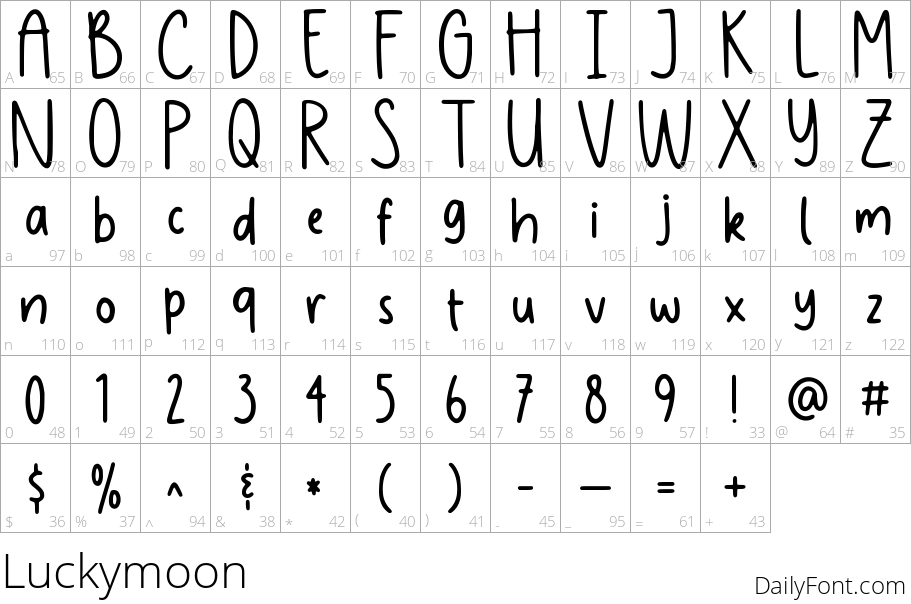
Luckymoon
Luckymoon is a charming handwritten font that brings a sense of playfulness and authenticity to your design projects. With its delicate strokes and whimsical character, this font is an ideal choice for children's activities, school projects, and anything that requires a touch of warmth and creativity. The unique letterforms of Luckymoon make it stand out, providing an engaging visual experience that draws the eye and captures the heart.
When you incorporate Luckymoon into your designs, you'll discover how this sweet, lettered font can infuse life into your creative endeavors. Whether you're designing invitations, crafting educational materials, or developing engaging content for kids, this font is versatile enough to elevate any project. Give your work a delightful personality with Luckymoon and watch as it resonates with your audience, making every piece feel special and inviting. Perfect for parents, educators, and creatives alike, Luckymoon is more than just a font; it’s a way to connect and inspire through the power of typography.